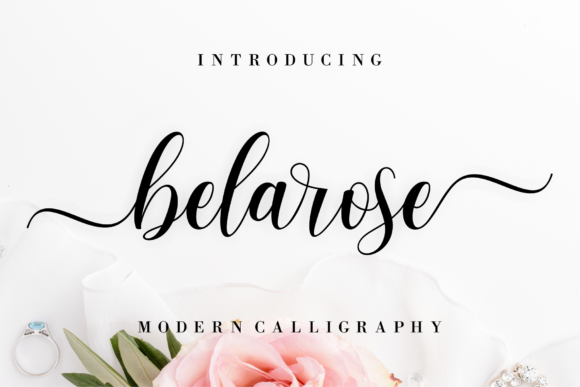
Discover Your New Favorite Font: Belarose
Have you ever been searching for the perfect font to make your design stand out? Maybe you’ve spent hours browsing through font collections, only to find that something is missing. I know I have! It wasn’t until I stumbled upon the Belarose Font that I felt like I had finally found my creative match.
This charming handwritten font was designed to become a true favorite among designers, and for good reason. With its PUA encoding, you’ll have access to all the glyphs and swashes you need to create stunning designs. Whether you’re working on a wedding invitation, social media post, or piece of stationery art, Belarose Font’s versatility will make your job a breeze.
As a designer, you know how valuable it is to have a reliable font that can help you bring your vision to life. That’s why I’m excited to share the Belarose Font with you – it’s a game-changer for anyone looking to add a touch of elegance and sophistication to their designs.
- Font Family: Belarose
- Font Style: Script
- Unique Characteristics: Hand-drawn design with elegant and cursive lines, perfect for invitations, greeting cards, and other creative projects
Designer Review: Belarose Font
Overall, I was quite impressed with the Belarose font. ✨ It has a beautiful, elegant design that makes it perfect for high-end brands and fashion-related projects. The font’s classic feel and delicate curves evoke a sense of sophistication and luxury.
- ✨ Elegant design: The font’s classic feel and delicate curves make it perfect for high-end brands and fashion-related projects.
- ✨ Versatility: The font is suitable for both print and digital applications.
- ✨ Beautiful line quality: The font’s lines are smooth and well-defined, making it perfect for creating beautiful typography.
- ⚠️ Limited font weights: The font only comes in a few weights, which may limit its use in certain situations.
- ⚠️ No italics: The font does not come with italics, which may be a drawback for some designers.
- ⚠️ Limited language support: The font may not support all languages, which could be a limitation for designers working on international projects.
Overall, I think the Belarose font is a beautiful and elegant choice for designers working on high-end projects. However, its limitations may make it less suitable for more complex or international projects.
Belarose font is a elegant and refined script font. To get the most out of it, use it for:
2. Luxury branding and packaging.
3. High-end event marketing materials.
4. Personalized gift tags and cards.
Belarose font is commonly used for:
1. Formal events and galas.
2. Luxury product launches.
3. Upscale restaurant and hotel marketing.
4. Elegant wedding websites and blogs.